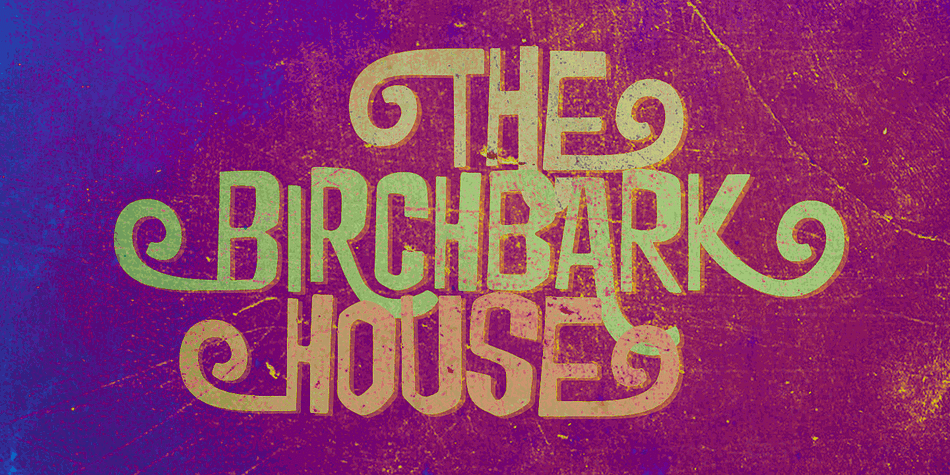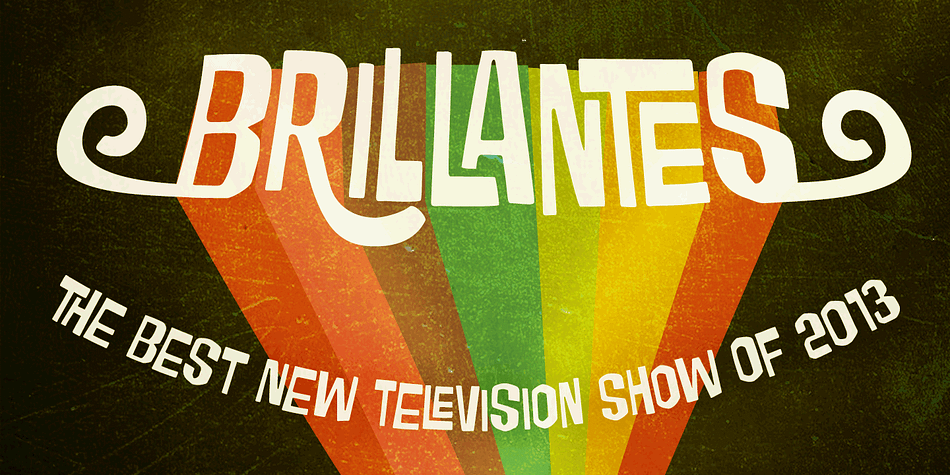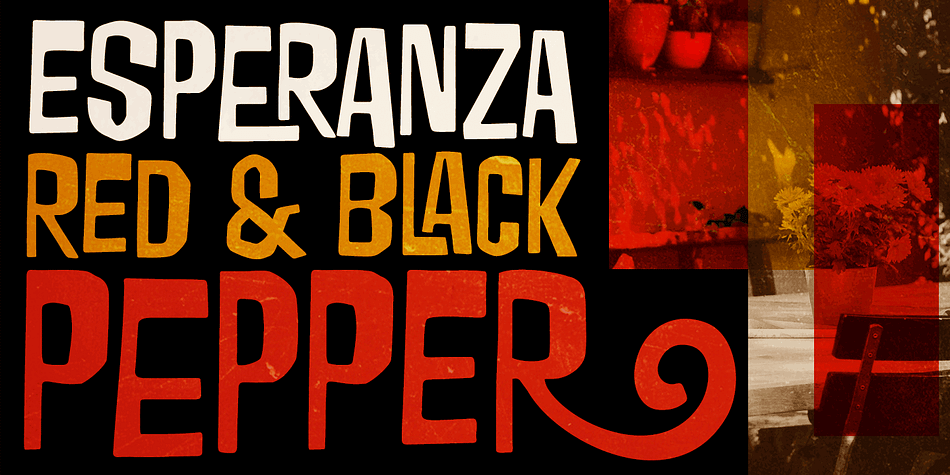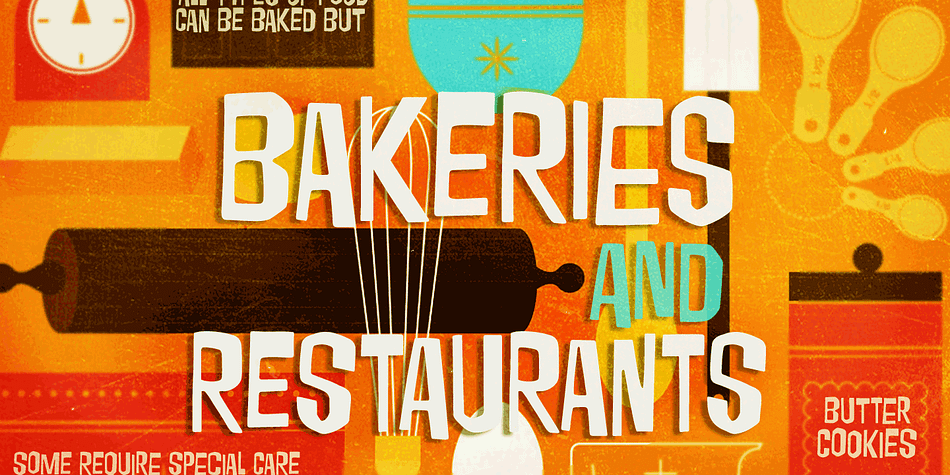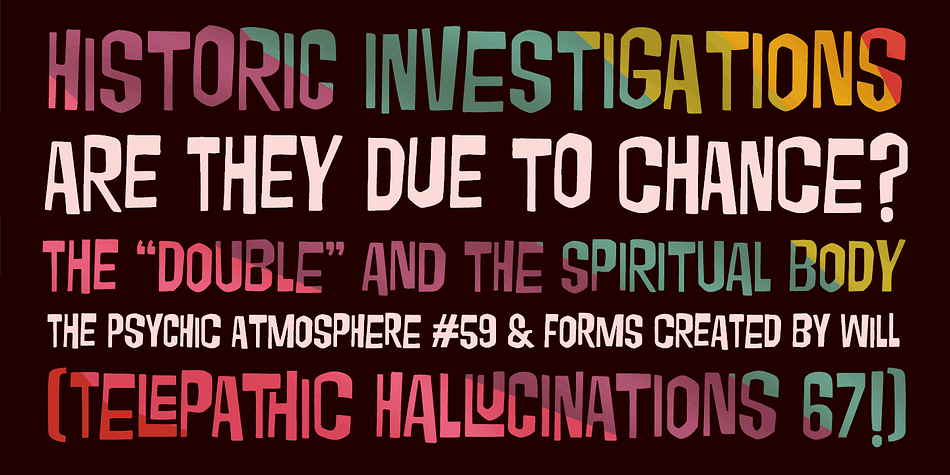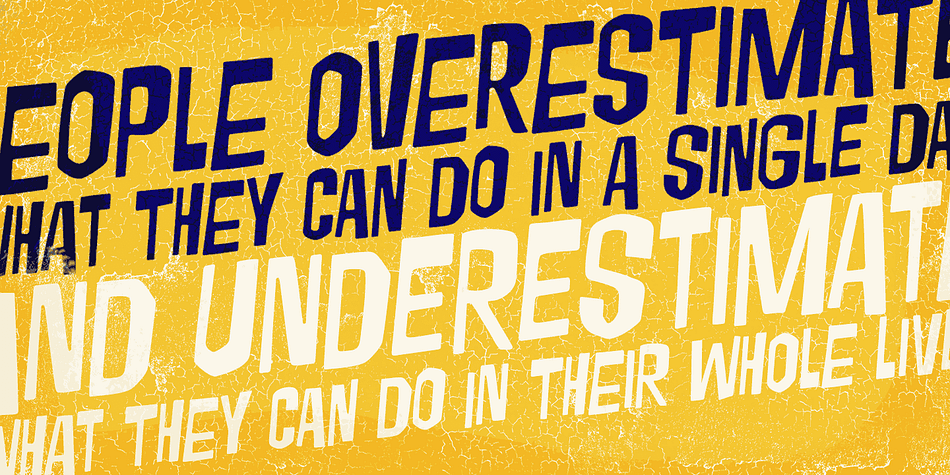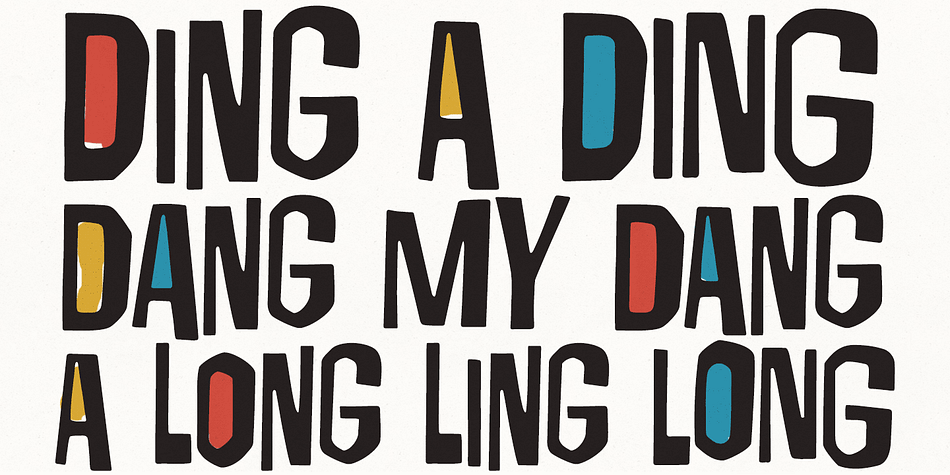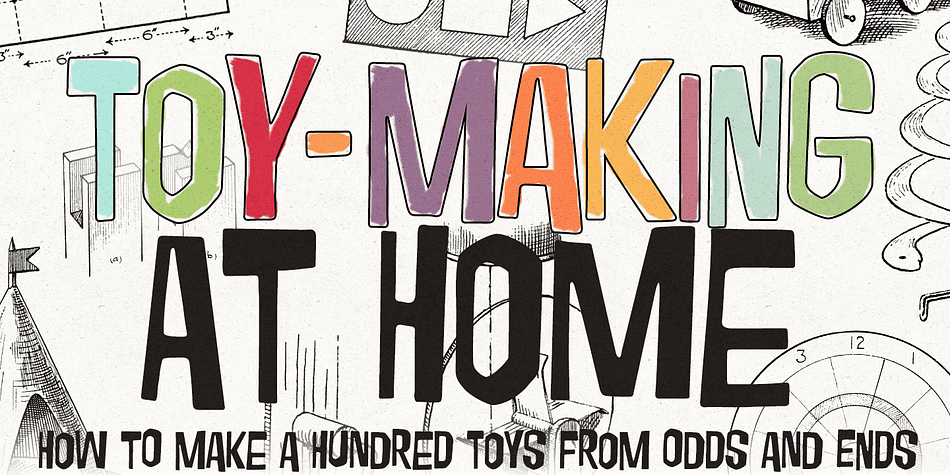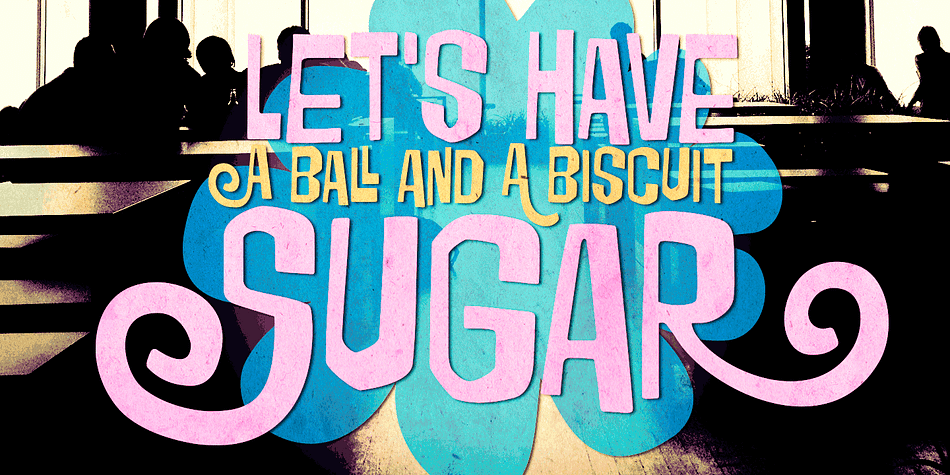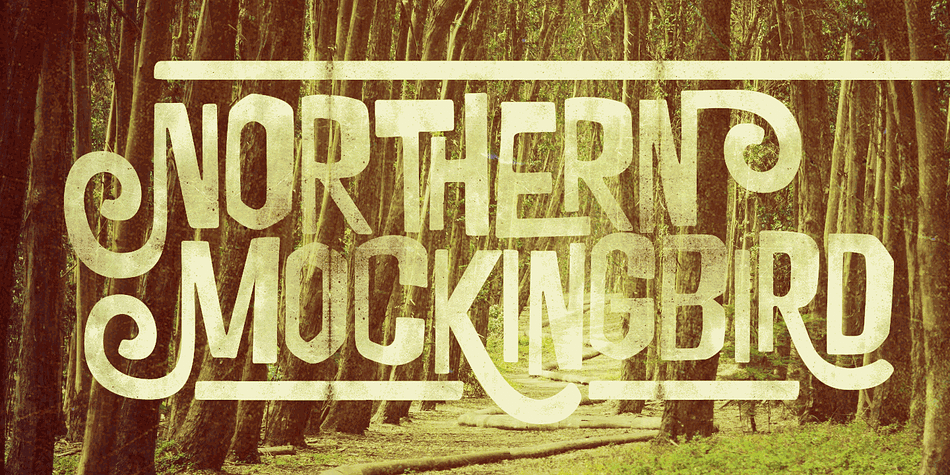
Tuesnight is a hand display font published by PintassilgoPrints.
Tuesnight feels like party!
Inspired by movie posters from the sixties but with a quite contemporary accent, this is a lively face, packed with lots of alternates and interlocking pairs, swashes to this side, swashes to that side, stylistic alternates…
A zip-zap guide: type upper- or lower-keys you get different lettershapes. Turn on the Contextual Alternates to get instant ycling of these. Click on Standard Ligatures for accessing the interlocking pairs. Or just dive into a glyphs palette and pick up your choices.
Tuesnight feels like party, and you’re sure invited! Have fun!